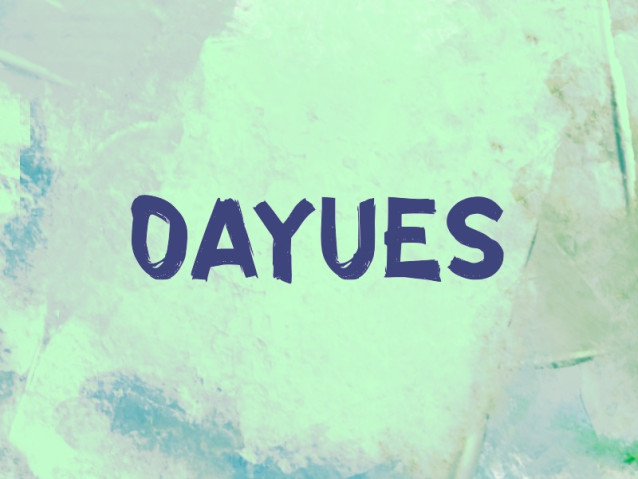
Oayues Font
Oayues Font is a simple and modern display font suitable for quotes, logos, headings, titles, and many more. Use it on any of your creative projects, and your designs will become outstanding!